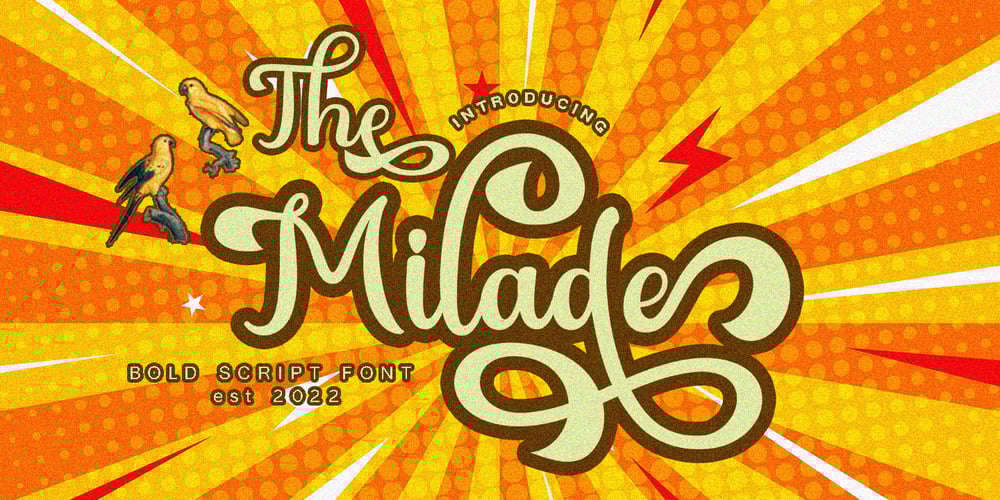
The Milade Font Family was designed by Teuku Bustami and published by TM Type. The Milade contains 1 styles and family package options. The Milade is inspired by the retro style in combination with the hand lettering style.The Milade has many alternative swash & ligatures characters and has opentype features like a stylistic alternatice, stylistic set, ligature, and swash so you can mix and match as you want.This font is PUA encoded which means you can access all of the amazing glyphs and ligatures with ease!